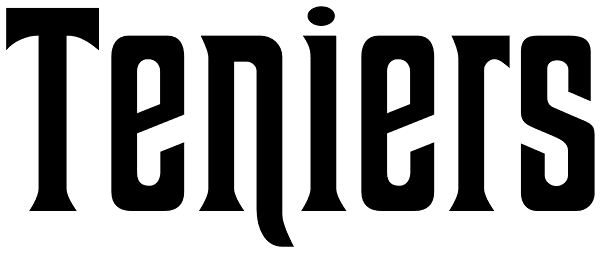
Teniers
A sans serif with splayed ends, descenders and ascenders of the lower case dropping below the baseline, or above the x-height, very tall x-height.